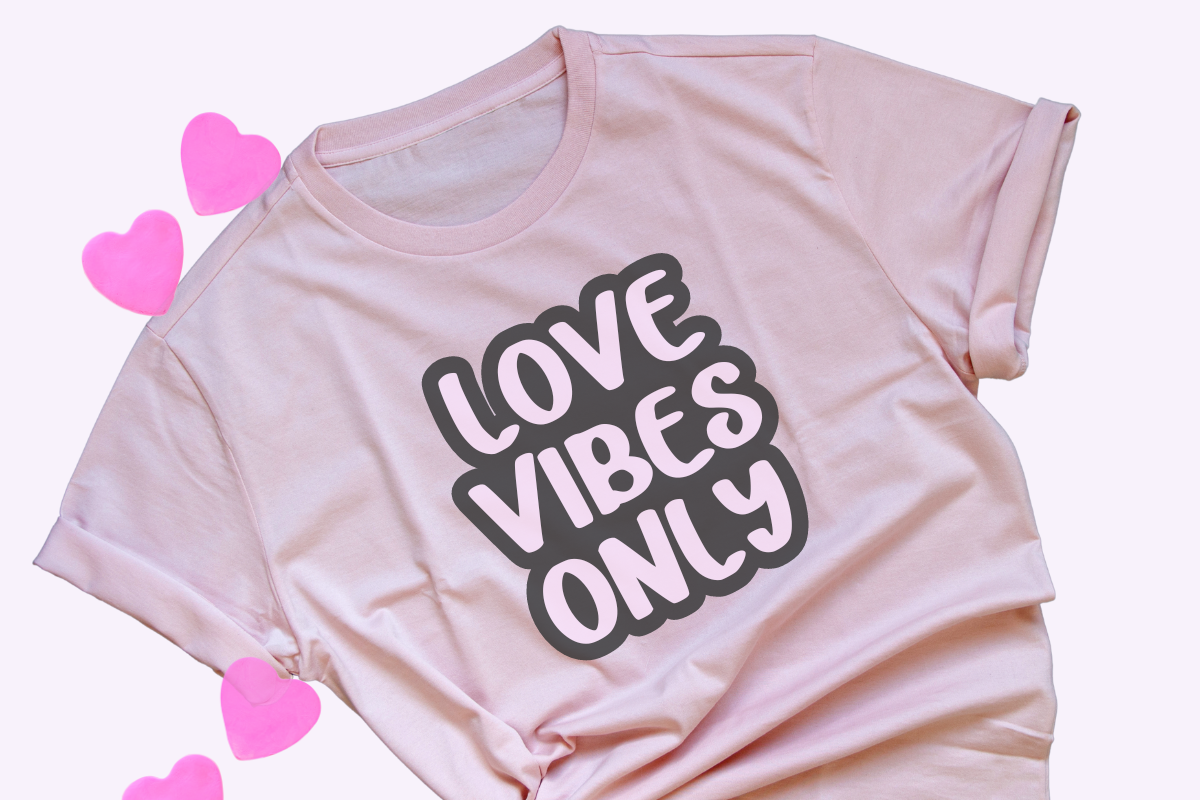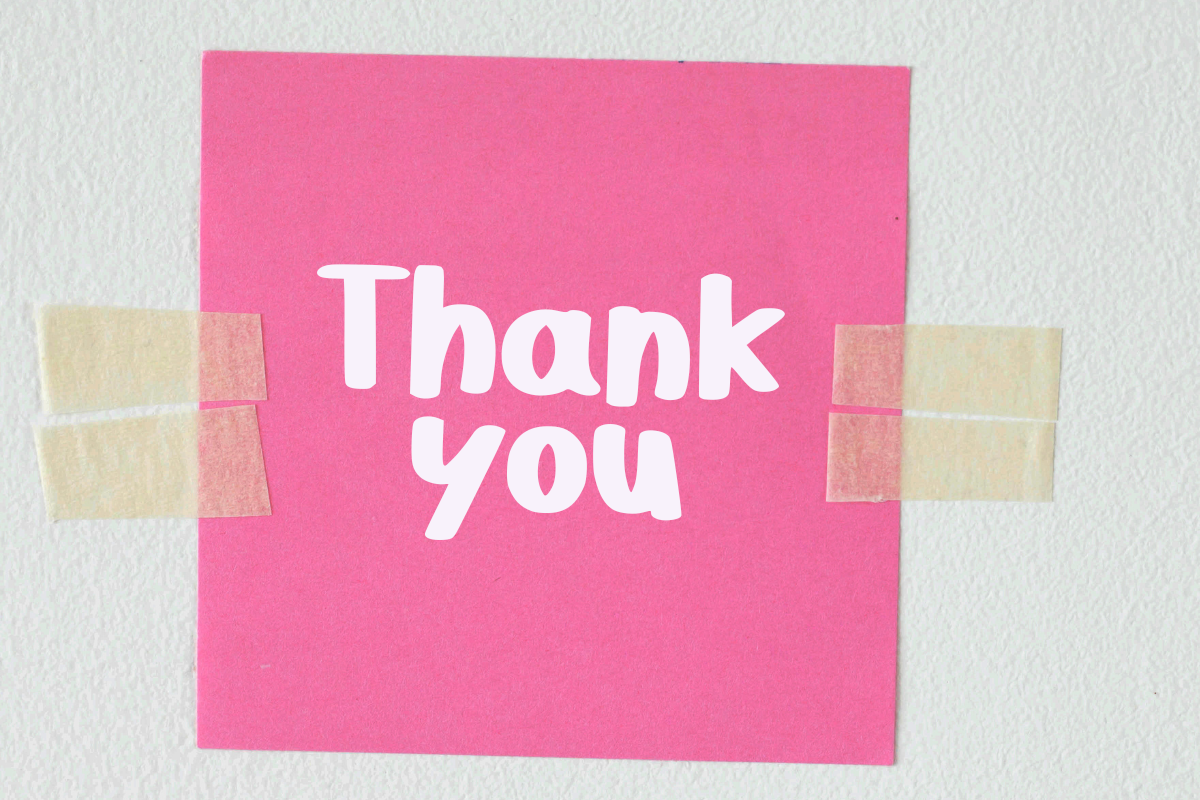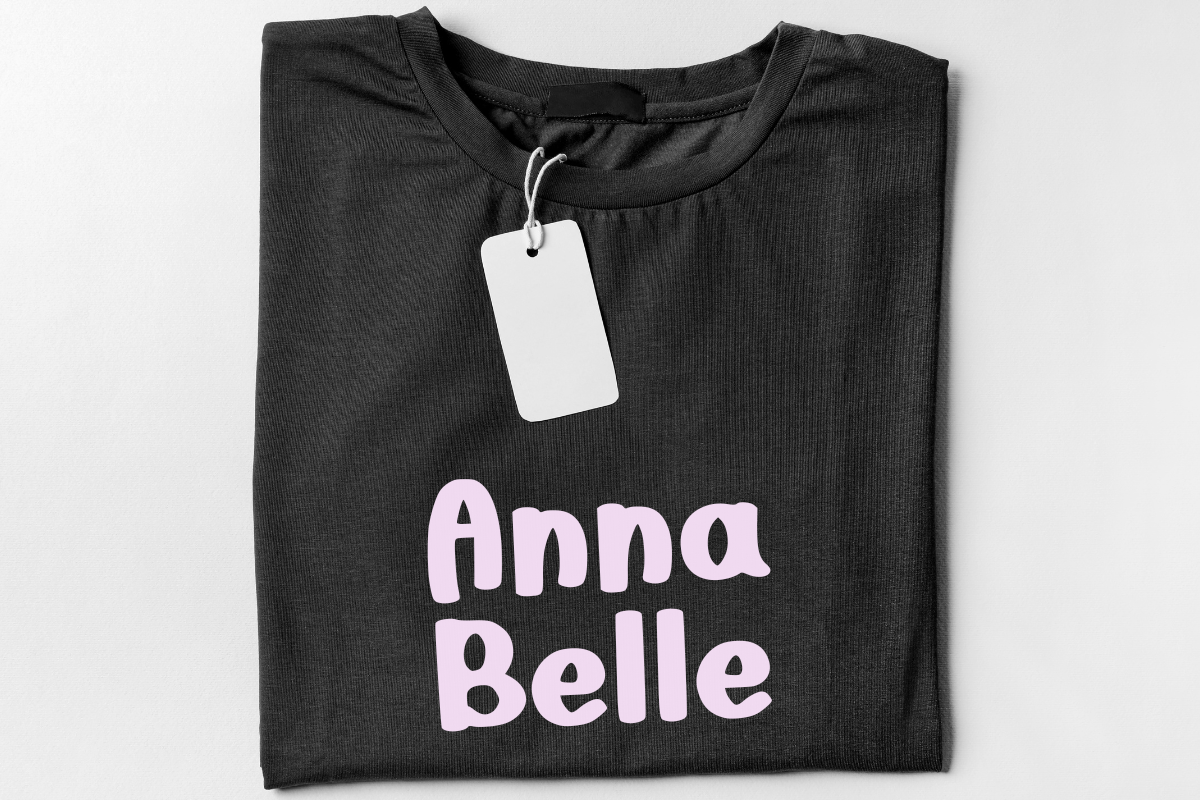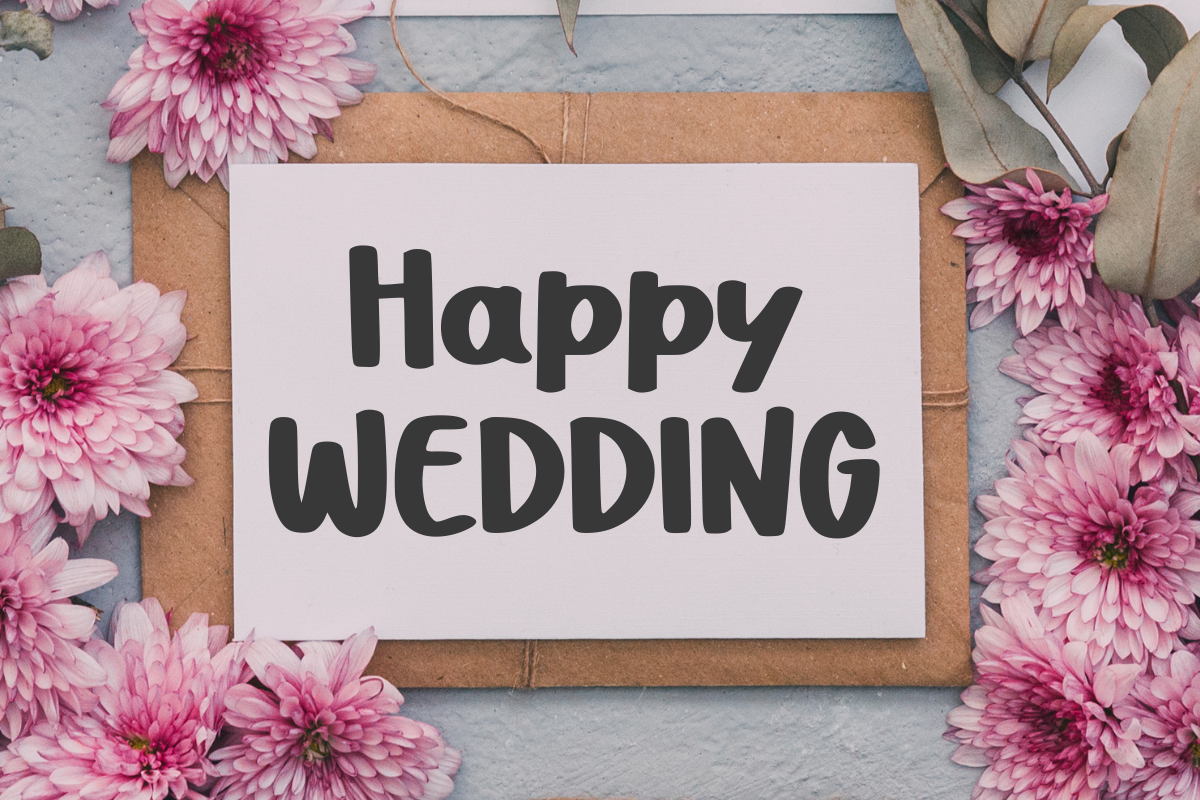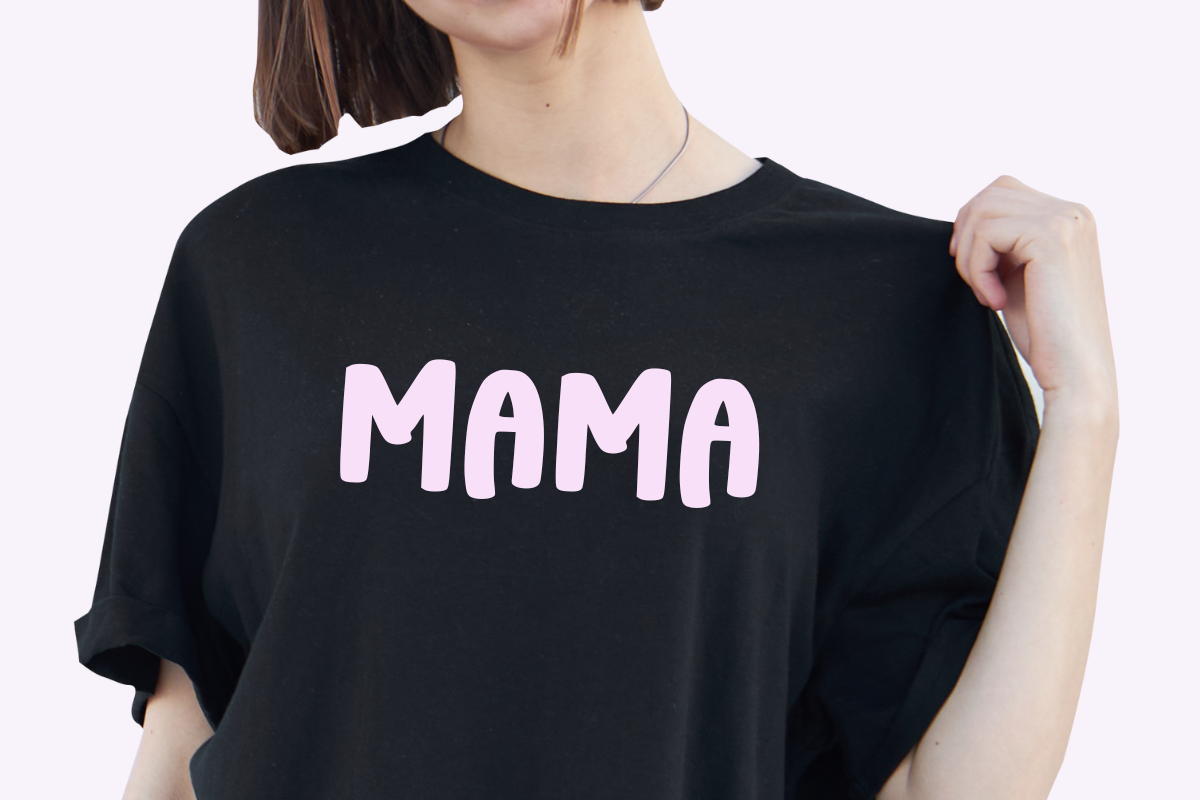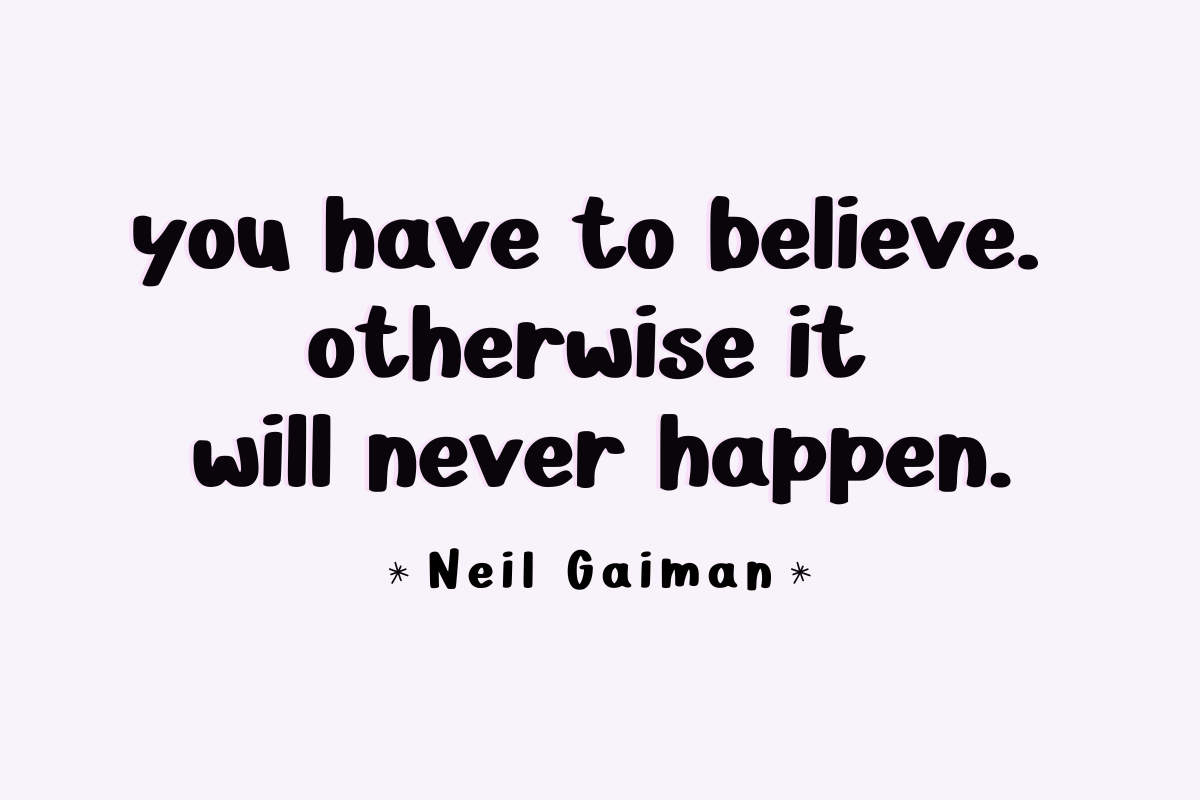
Rainbow Charming - Playful Display
Rainbow Charming is a vibrant, bold, and high-energy playful display font designed by Sakti Avellin to bring a sense of joy and approachability to your creative projects. This chunky hand-drawn font features thick, rounded letterforms with a cheerful, bouncy rhythm, making it an essential choice for kids' branding, colorful sticker designs, kindergarten posters, nursery decor, and engaging social media graphics. Its high-impact and friendly silhouette ensures it stands out as a powerful decorative typeface for headlines and product packaging, perfect for designers looking for a "spooky-cute" or "vibrant-fun" aesthetic. Add a touch of whimsical charm to your work with the bold character of Rainbow Charming!